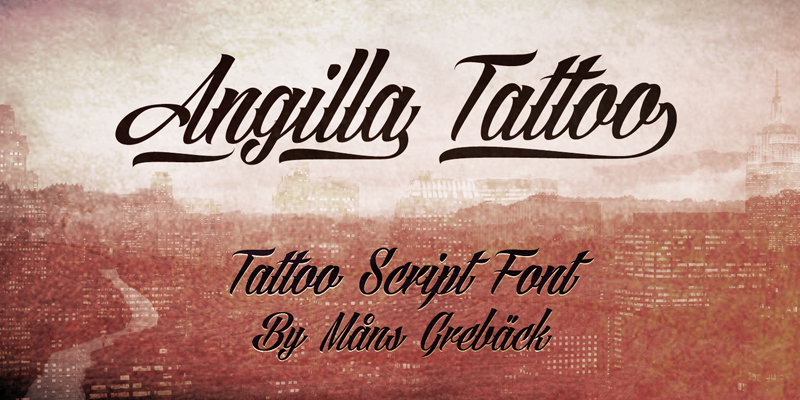
Angilla Tattoo by Mans Greback is a free calligraphic script with dramatic, finely tapered strokes and a strong tattoo-lettering influence. Sweeping capitals rise far above the smaller connected letters, and long entry strokes give the writing a restless forward pull.
Its tattoo-parlor character suits flash sheets, apparel graphics, and music posters with an ornate, rebellious edge. It also has the flourish and formality needed for spirits packaging. The extended strokes can weave through roses, banners, or engraved ornament, letting the lettering become part of the illustration.
Use the numbers for swashes. For example: A1ngilla4 Tattoo8